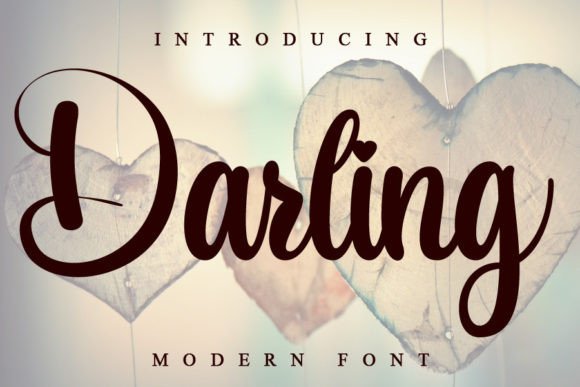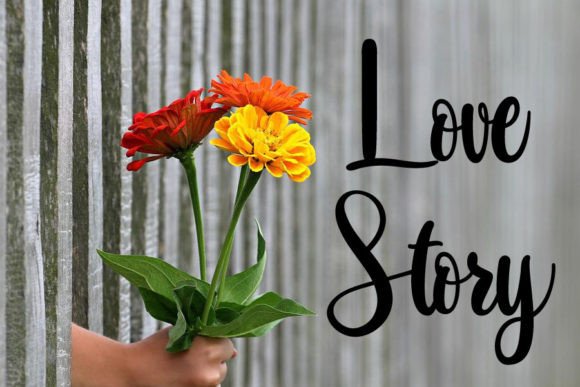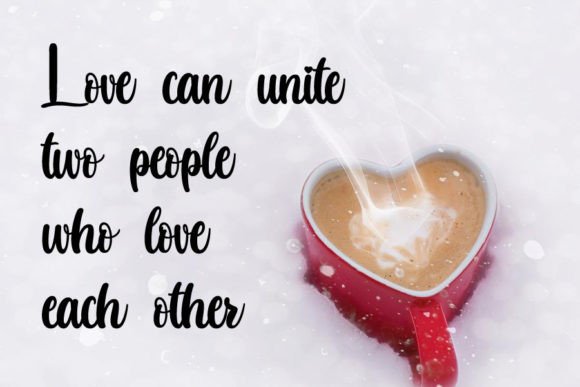
Introducing Darling, a fresh and beautiful font crafted for various design purposes such as YouTube banners, cover logo mockups, wedding invitations, ID cards, flyers, and crafts. This versatile font is not only visually appealing but also contributes to the progress and development of your business. With its simplicity and uniqueness, Darling stands out as a valuable asset for your creative projects.
The fresh and beautiful design of Darling makes it suitable for a range of applications, adding a touch of elegance and style to your designs. Its versatility allows it to adapt seamlessly to different contexts, making it a go-to choice for a variety of creative endeavors.
Imagine Darling enhancing the visual appeal of your YouTube banners, where its fresh and beautiful script font creates an eye-catching and professional look. Picture it on wedding invitations, adding a touch of elegance and charm to your special event. Envision it becoming the preferred font for your business materials, contributing to a cohesive and sophisticated brand identity.
Darling is not just a font; it’s a design element that brings freshness and beauty to your projects. Its simplicity and uniqueness make it a valuable addition to your font collection.
Add Darling to your creative toolkit and witness how it elevates your design purposes, making your projects stand out with a fresh and beautiful aesthetic. Let Darling be the font that contributes to the progress and development of your visual identity!